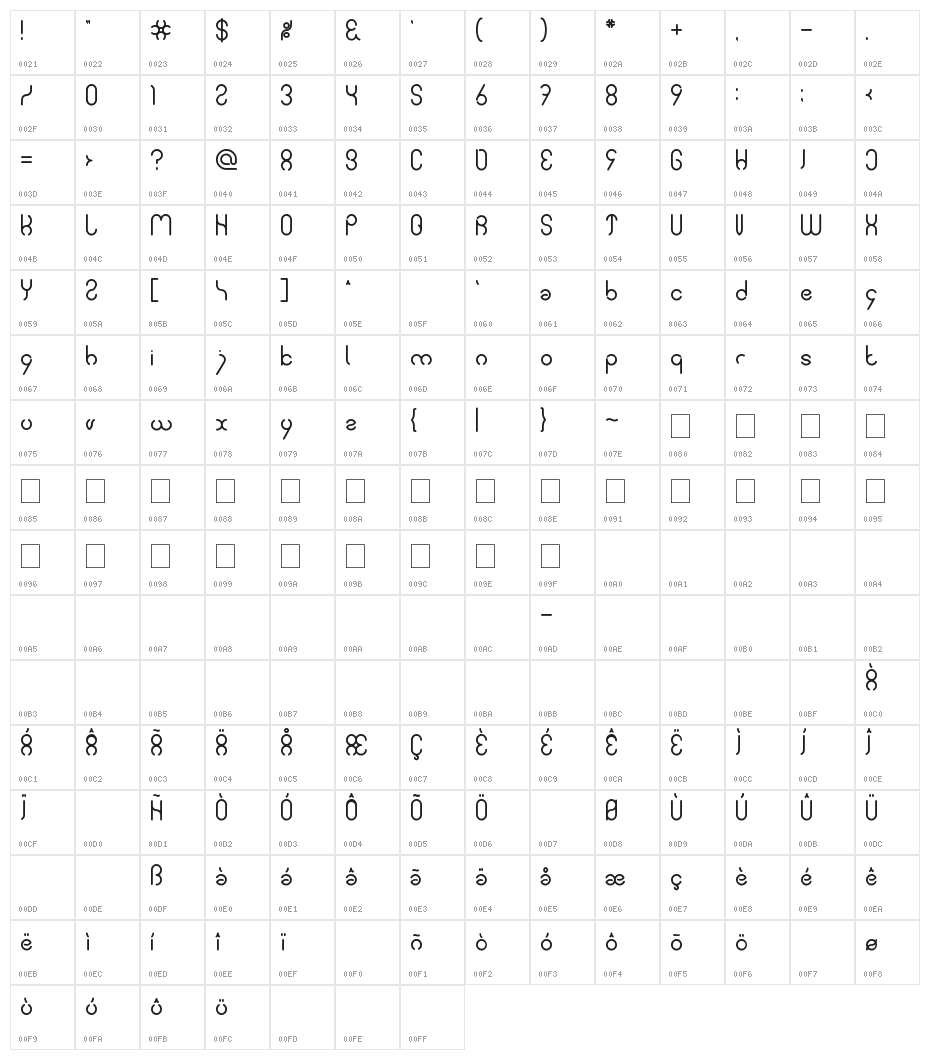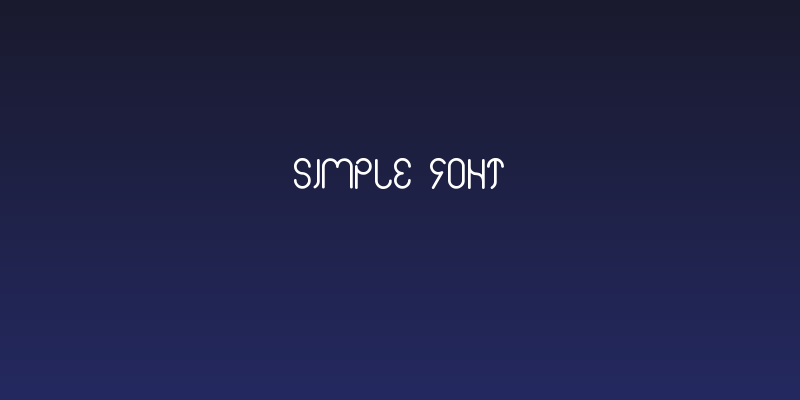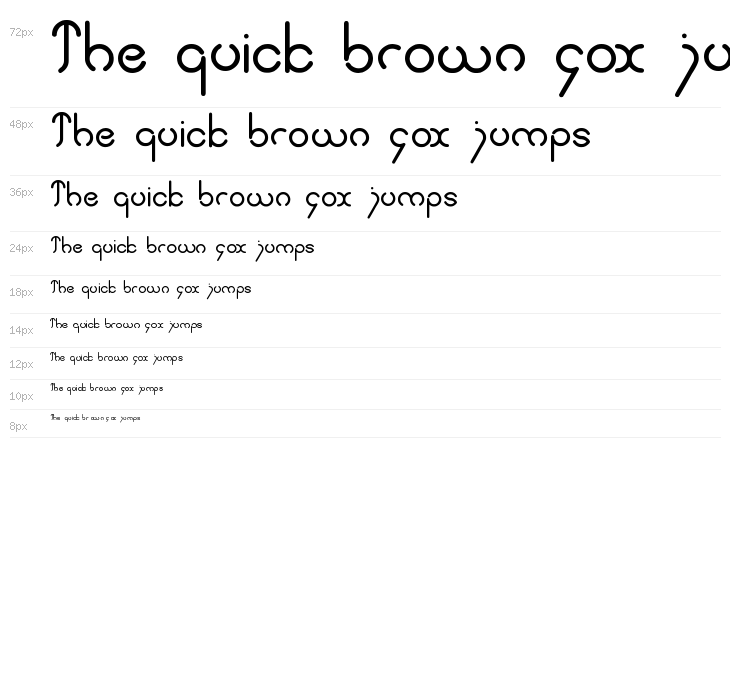
simple font Font
| Anwendungsfall | Logos, Headlines, Posters |
| Vorgeschlagene Projekte | Ideal for branding, advertising, posters, and digital media projects that seek a modern and playful aesthetic. |